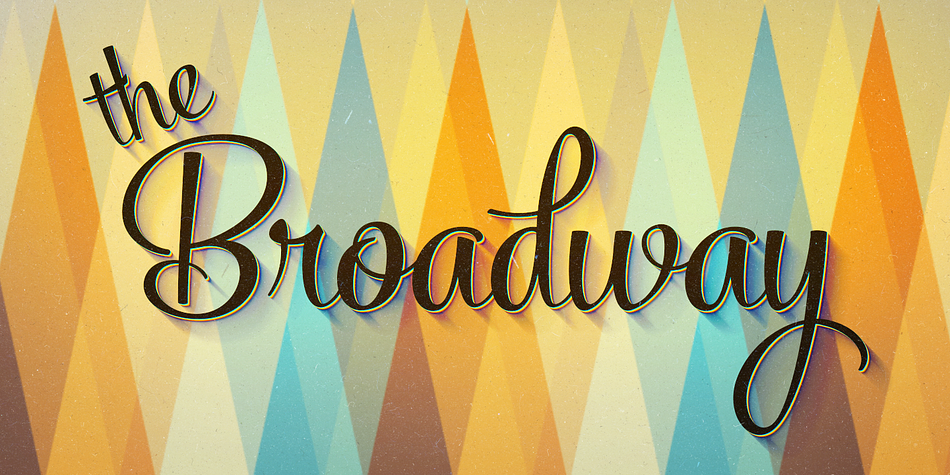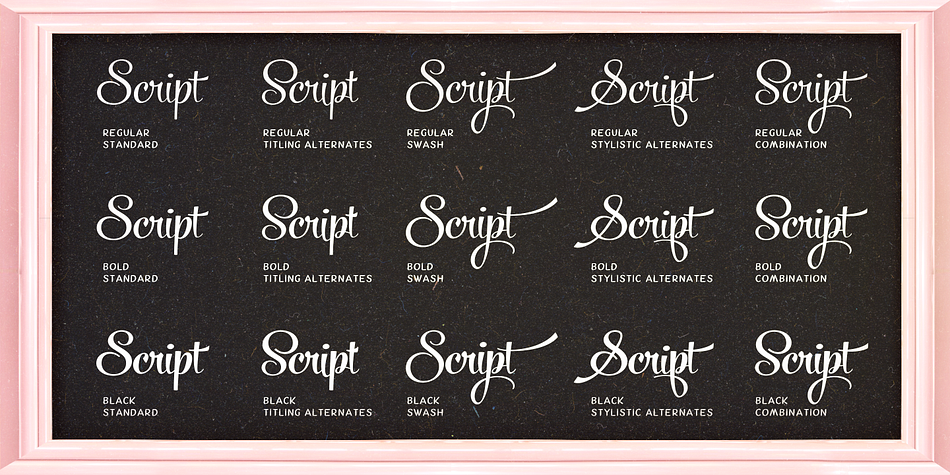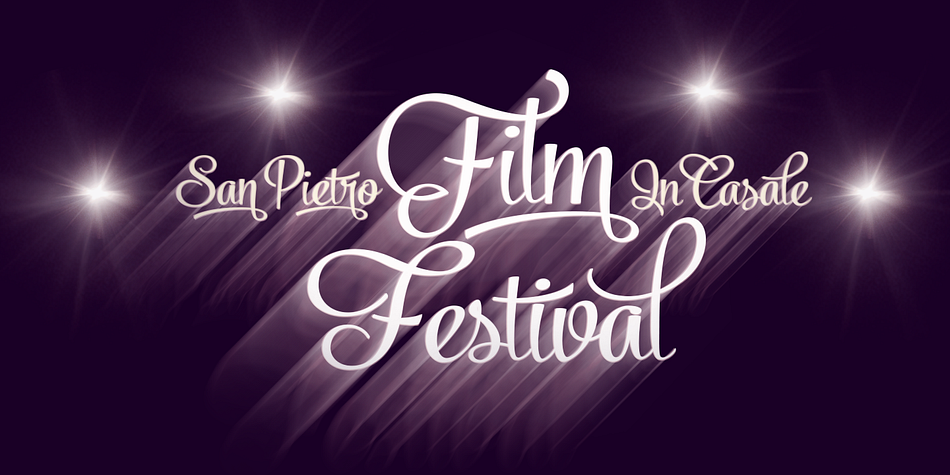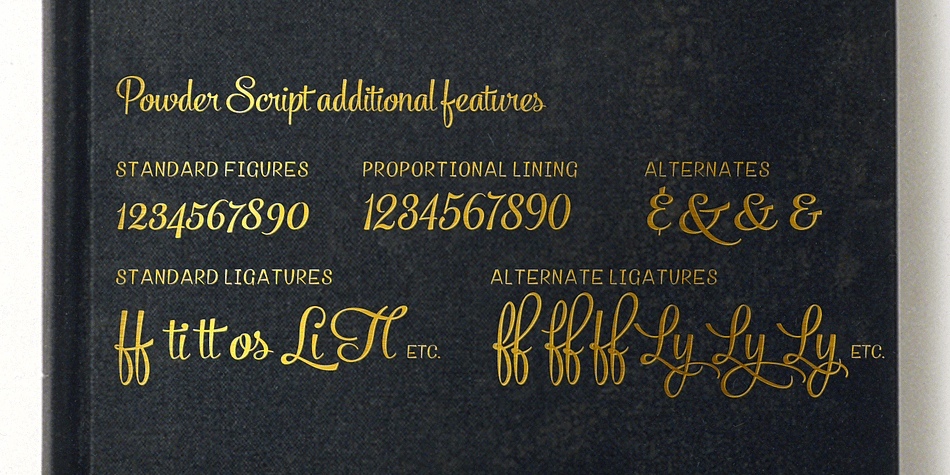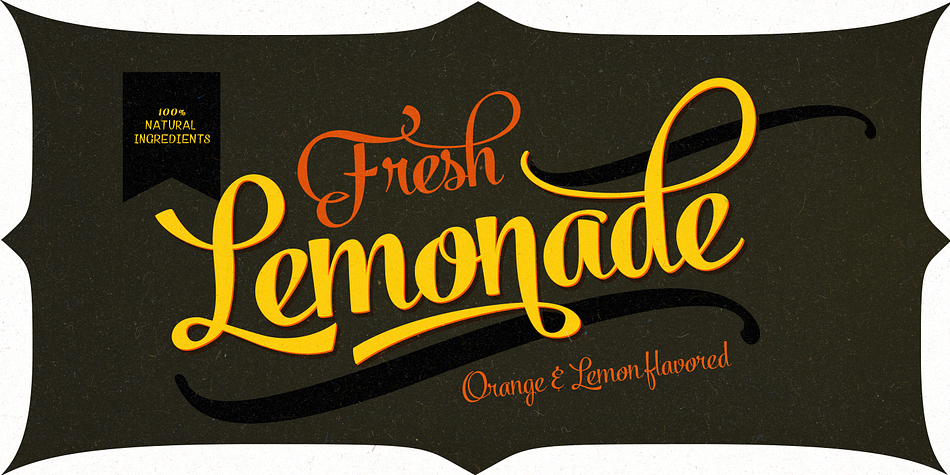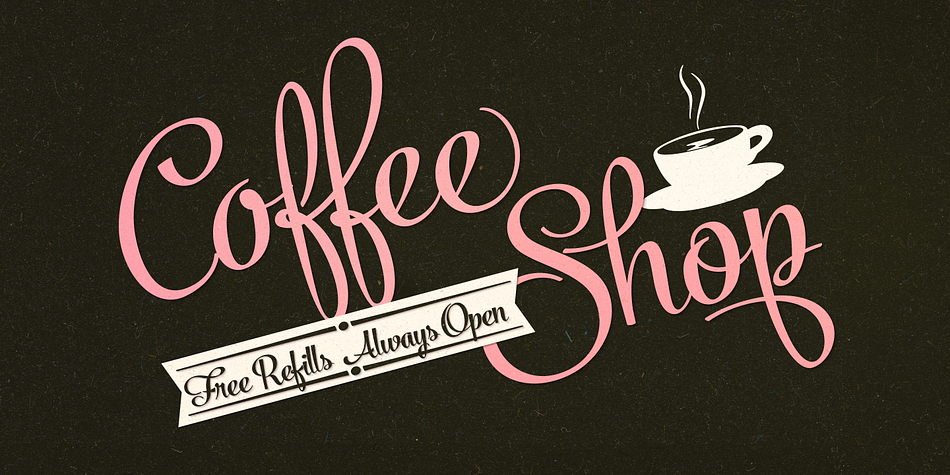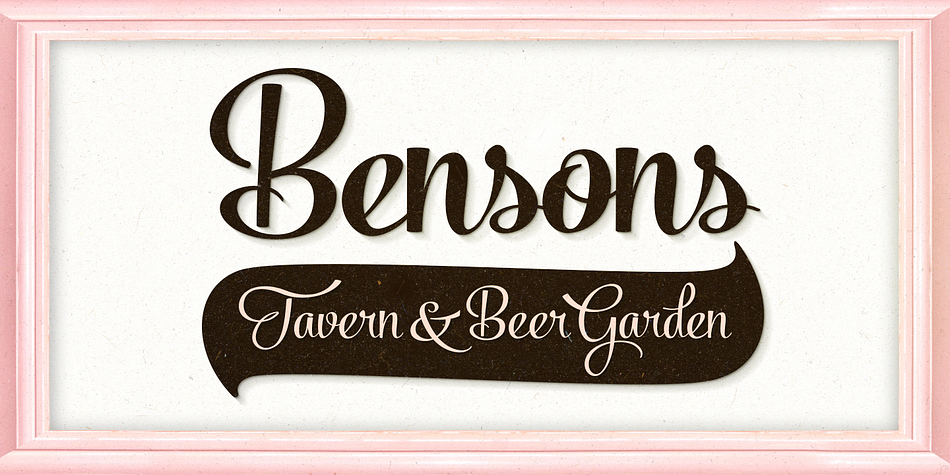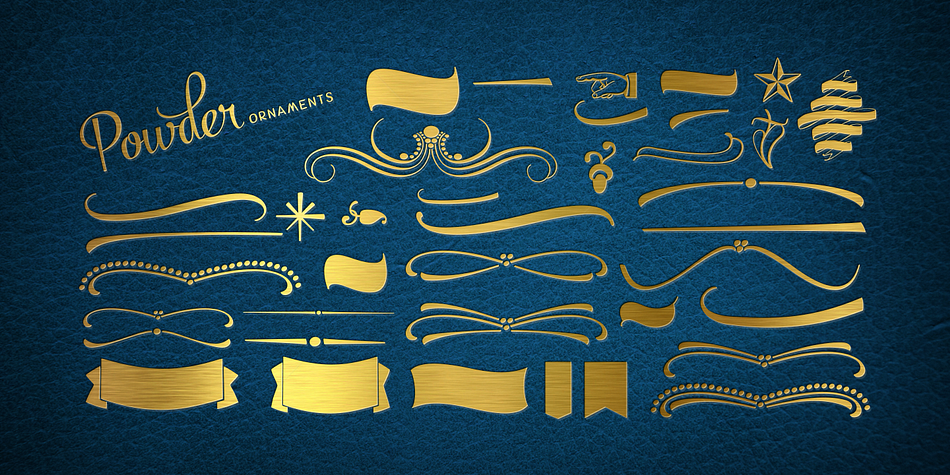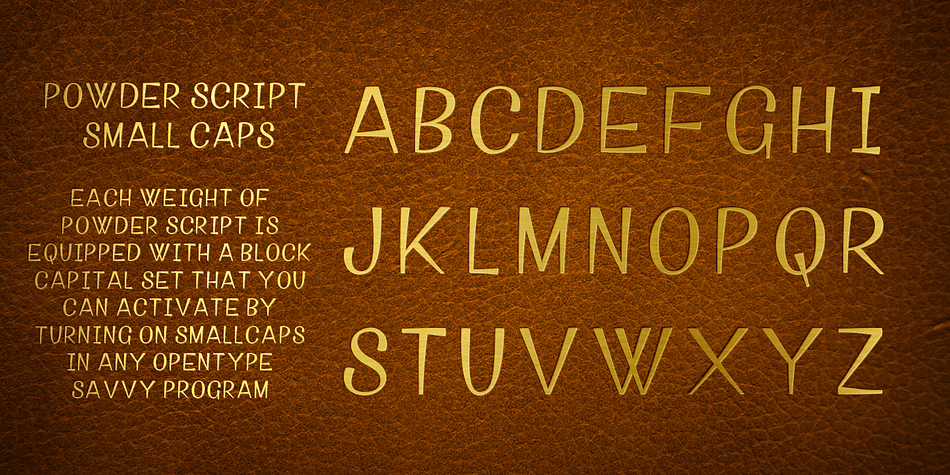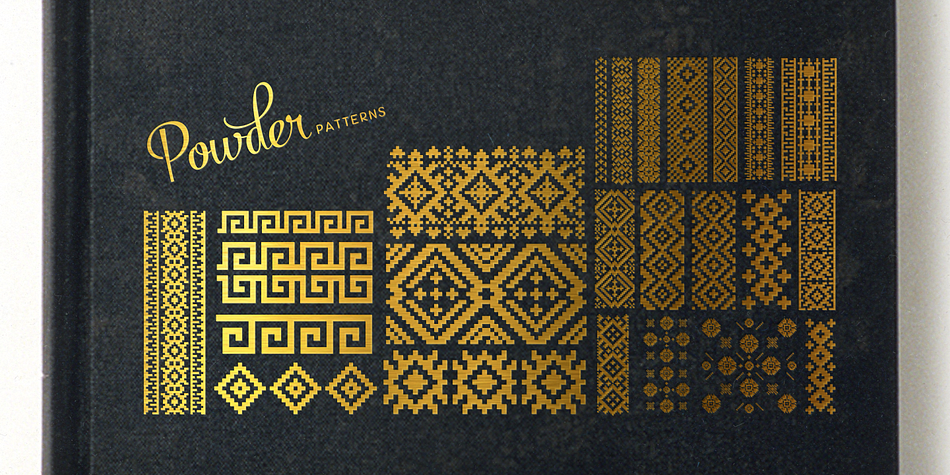
Powder Script is a dingbat and brush script font family. This typeface has five styles and was published by Fenotype.
Powder Script is a showy brush style script family of three weights -regular, bold and black plus matching Ornament and Pattern set. Powder Script is packed with almost 800 glyphs per weight and is full of features. To activate alternate characters click on Swash, Stylistic or Titling Alternates in any OpenType savvy program or manually select from even more characters from the Glyph Palette.
Inside each weight is a set of block capitals that you can activate by turning on Small Caps. You can use Small Caps to create evenly lined text blocks to support your design.
Engage Powder Ornaments and Powder Patterns to complete your designs while using Powder Script.